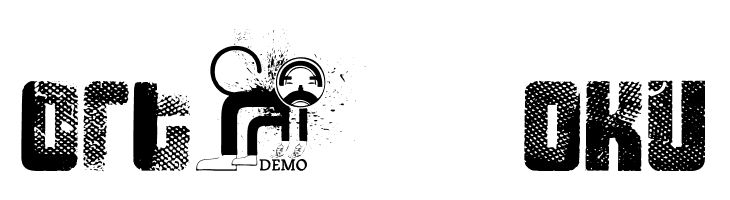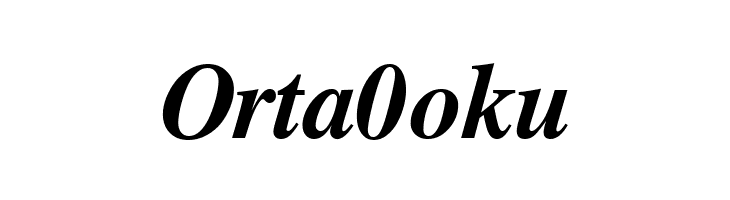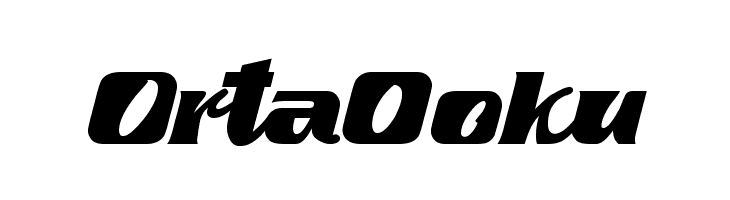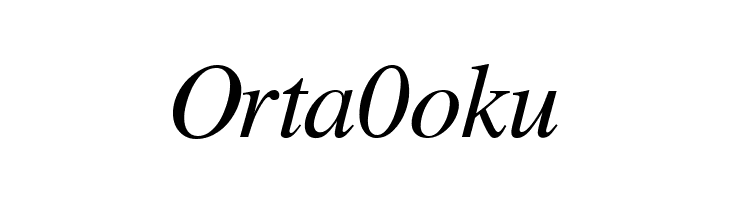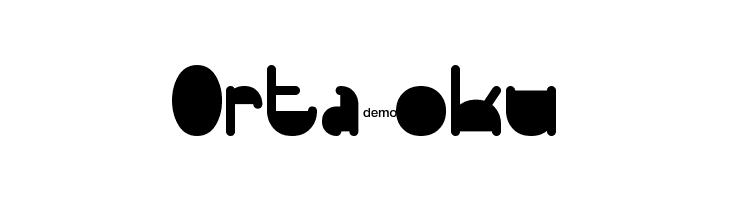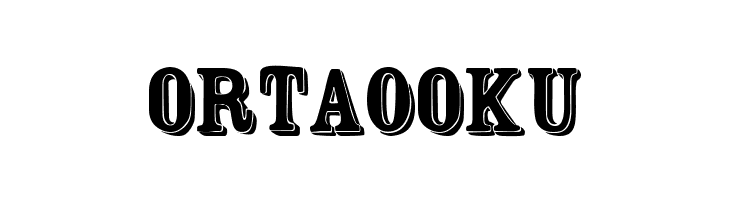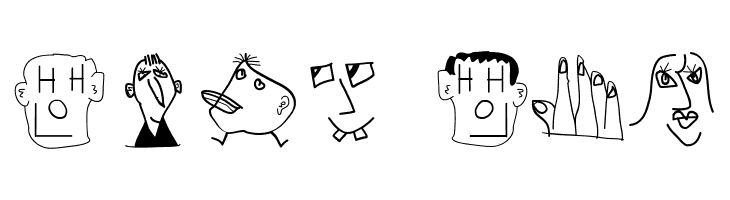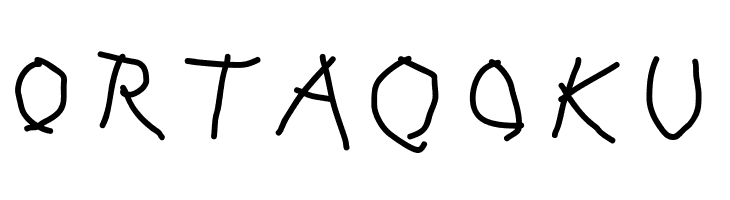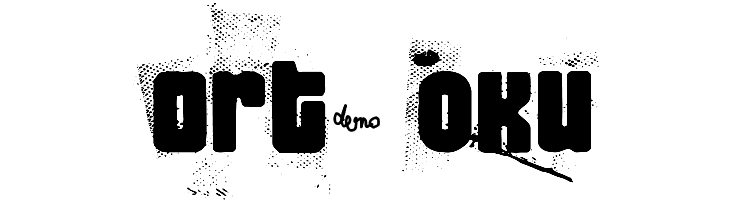
• FreeSerif Bold Italic
A bold, italic serif font with a classic and elegant style.
• FreeSerif Italic
An elegant serif font with an italic slant, offering a classic and sophisticated look.
• FrenzyWut
A playful, hand-drawn font with irregular strokes and a lively appearance.
• fretine
A bold, italicized font with sharp angles and a dynamic, modern style.
• FromKarlasIdeas
A whimsical, decorative font featuring abstract, cartoon-like faces and figures.
• FT 3 the hard way Overrun
A bold, distressed font with a textured, industrial style.
• FT BigMedium_DEMO
A bold, blocky font with a distressed, industrial texture.
• FT Pedant Dilettante demo
A bold, geometric font with a modern and playful design.
• FT Rock It! Deluxe_Demo
A bold, distressed font with a grunge texture and strong vertical emphasis.
• FT Rosecube normal
A bold, vintage-inspired serif font with strong, block-like serifs and a cohesive, decorative style.